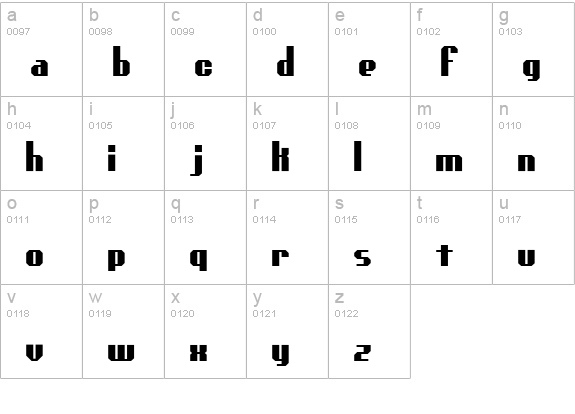
The S BRK font genotype is a stylish and modern typeface that exudes elegance and sophistication. With its sleek lines and contemporary design, this font is perfect for a wide range of design projects, from branding and advertising to web design and packaging. The S BRK font genotype is versatile and eye-catching, making it a great choice for both print and digital media. The best part about the S BRK font genotype is that it is completely free to download at FontsMarket.com. This means that you can easily access this high-quality font without worrying about any costs or fees. Whether you're a professional designer looking to add a new font to your collection or a hobbyist looking to spice up your projects, the S BRK font genotype is a fantastic choice. Don't miss out on the opportunity to enhance your designs with this amazing font – download it for free today at FontsMarket.com!